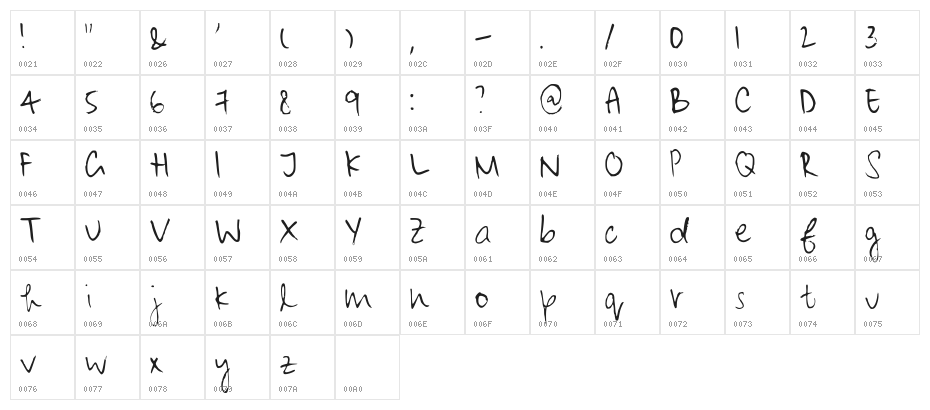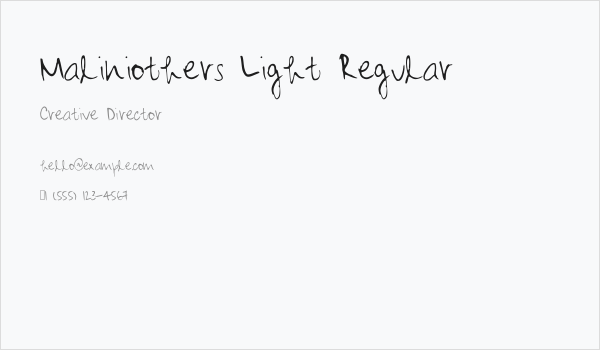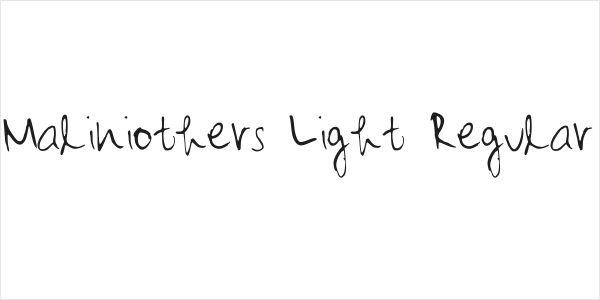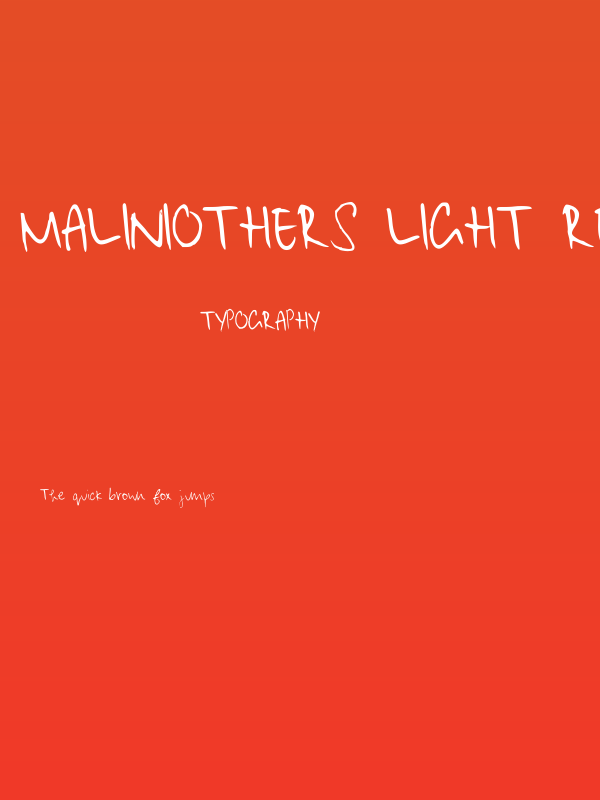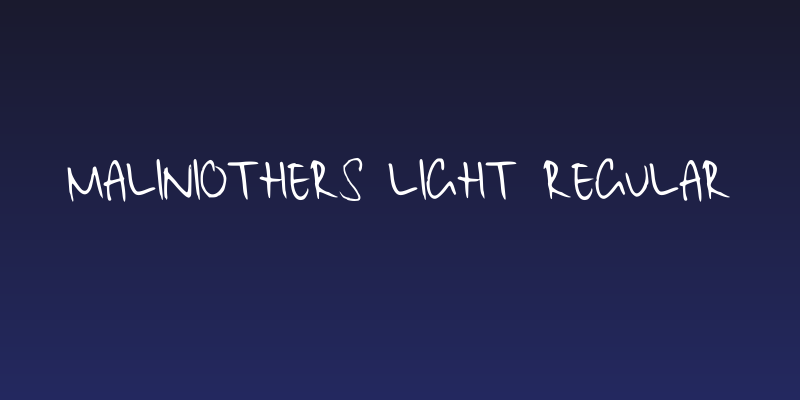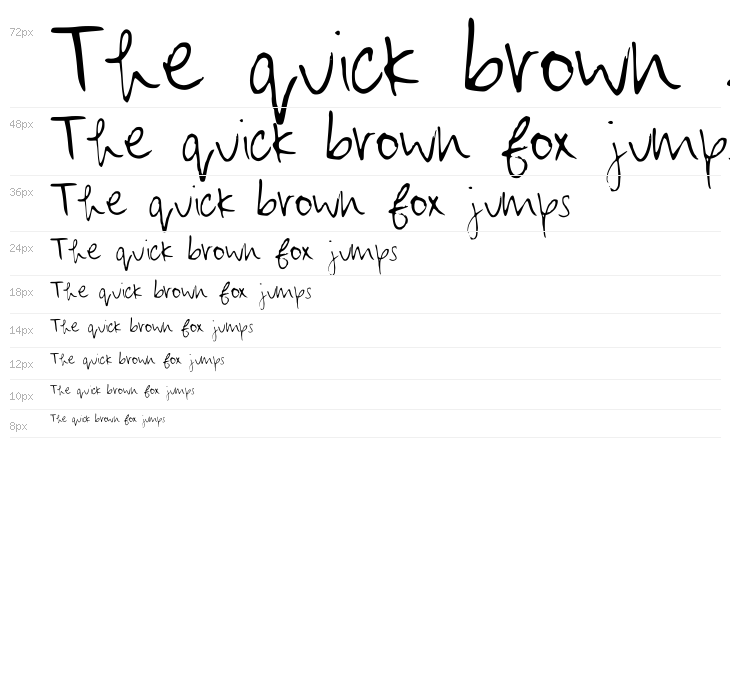
Maliniothers Light Regular Font
Maliniothers Light Regular Description
This font features a dynamic and expressive handwritten style, characterized by its fluid strokes and natural flow. The uppercase letters are bold and slightly angular, while the lowercase letters maintain a consistent, cursive-like appearance. The numerals are distinct and easy to read, complementing the overall aesthetic. Special characters are creatively integrated, adding to the font's versatility. The strokes vary in thickness, giving it a lively and organic feel, suitable for projects that require a personal touch.
| Use Case | Logos, Invitations, Greeting cards |
| Proposed Projects | Ideal for personal branding, invitations, greeting cards, and creative projects that require a personal and artistic touch. |